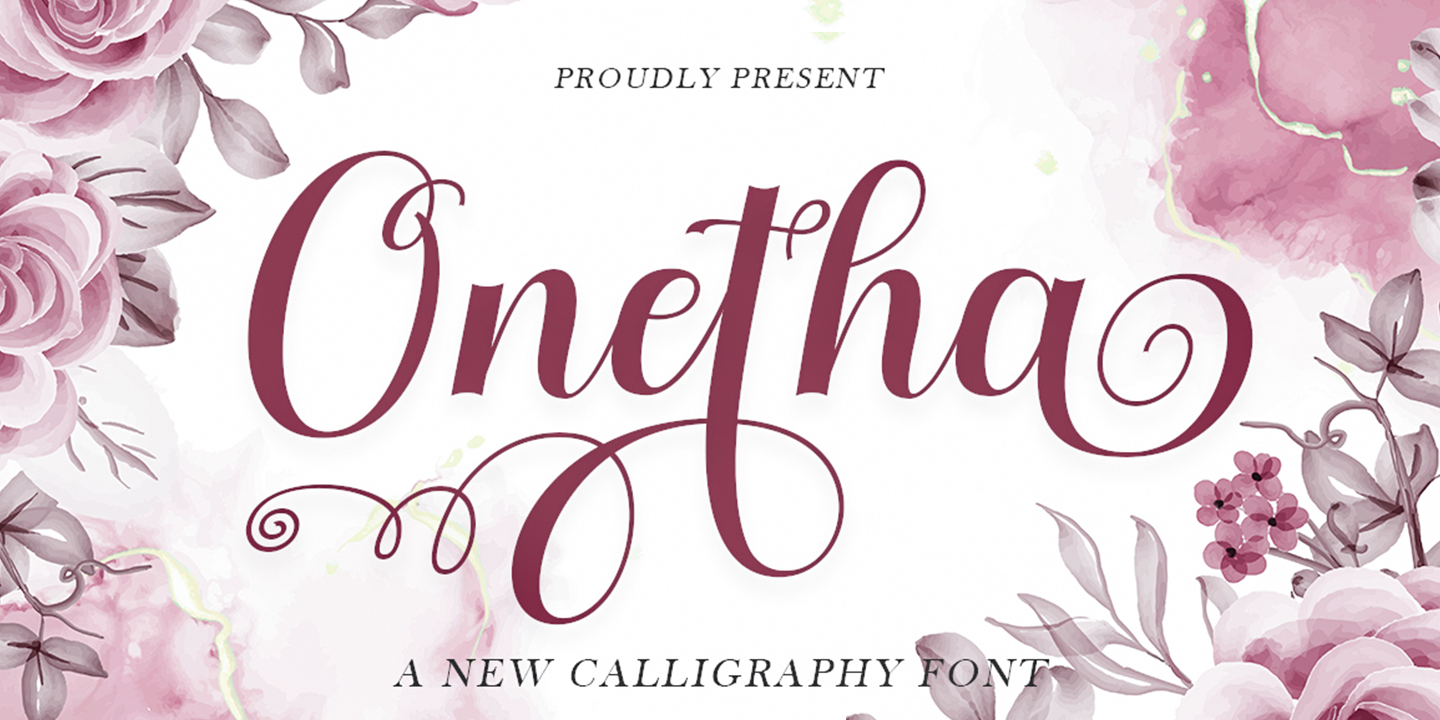
Onetha Font is ideal for contemporary art galleries, modern design studios, minimalist brand identities, avant-garde fashion labels, architectural firm presentations, innovative tech startups, creative agency portfolios, modern furniture showrooms, abstract art exhibitions, progressive music albums, cutting-edge digital platforms, and forward-thinking lifestyle brands.
This font is exciting because it embodies the essence of singular innovation and unique creative vision, featuring distinctively modern letterforms that stand alone with the same confident individuality and artistic integrity that defines groundbreaking creative work and revolutionary design thinking. The carefully crafted character design strikes the perfect balance between geometric precision and organic flow, creating typography that feels both intellectually sophisticated and emotionally resonant. Each letter demonstrates the kind of purposeful originality and thoughtful innovation that separates truly exceptional design from conventional solutions, making every word feel like a carefully considered artistic statement.
The Onetha Font family includes regular and bold weights with complete character sets featuring contemporary numerals, modern punctuation marks, and subtle decorative elements that enhance readability without compromising the clean, sophisticated aesthetic. Advanced versions may offer additional weight variations, condensed options for space-efficient layouts, and enhanced OpenType features that provide designers with maximum creative flexibility for contemporary applications.
Whether you're developing cutting-edge brand identities, creating modern artistic content, or designing innovative digital experiences, Onetha Font Free Download provides the distinctive character and contemporary sophistication your project needs to stand out in today's crowded creative landscape. This typeface transforms ordinary text into refined statements that communicate intelligence, creativity, and forward-thinking vision. The font's unique character makes it perfect for brands and projects that value originality and contemporary design excellence. Modern designers and creative professionals will appreciate how this font brings authentic contemporary elegance to their work with its genuinely innovative and thoughtfully crafted character that defines the future of typography.